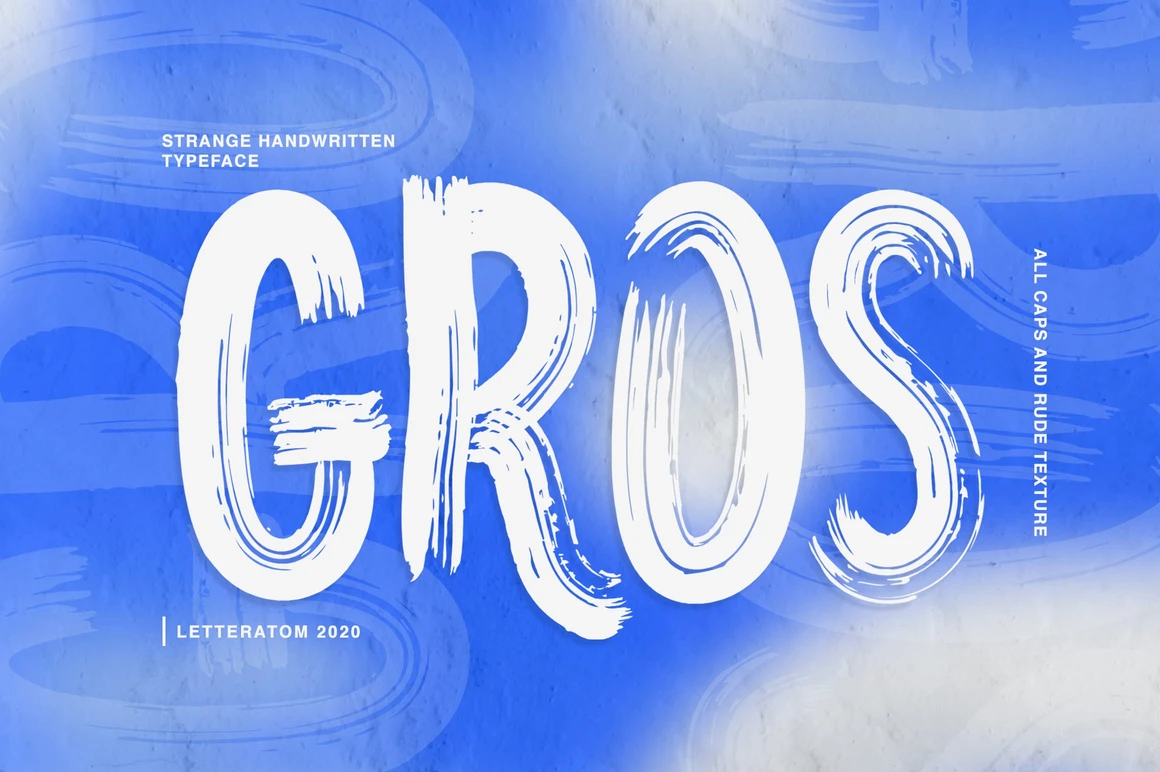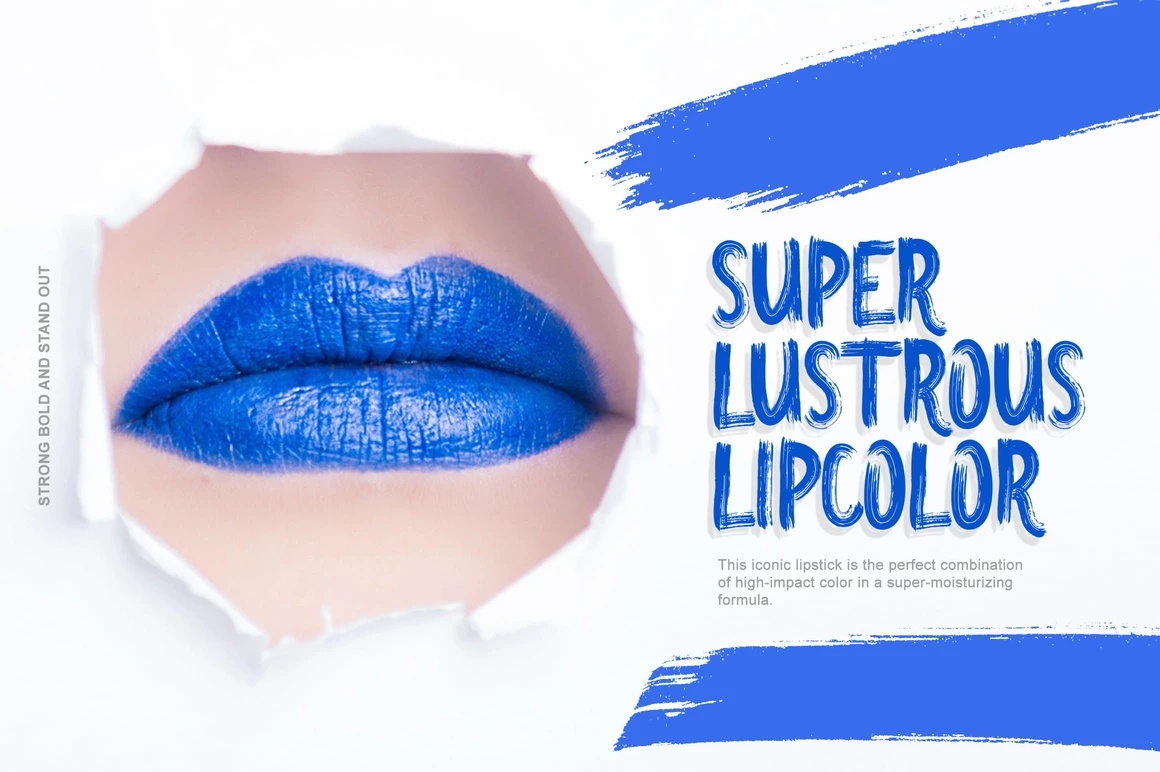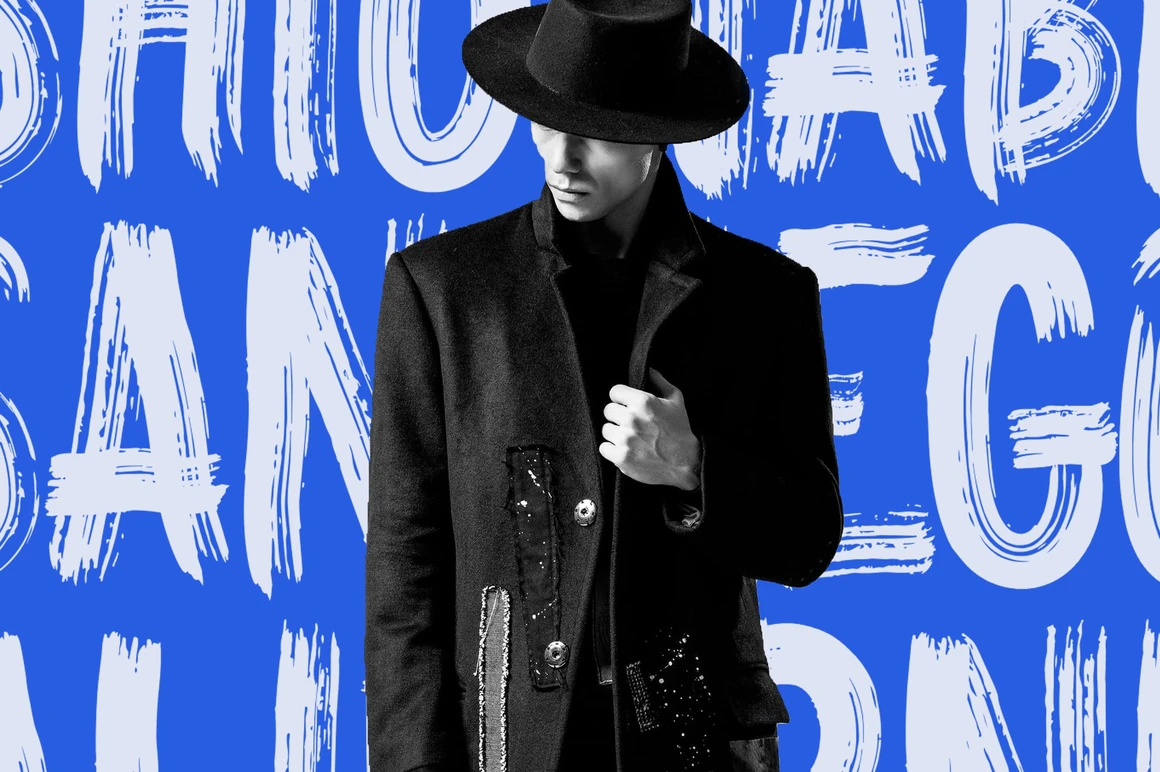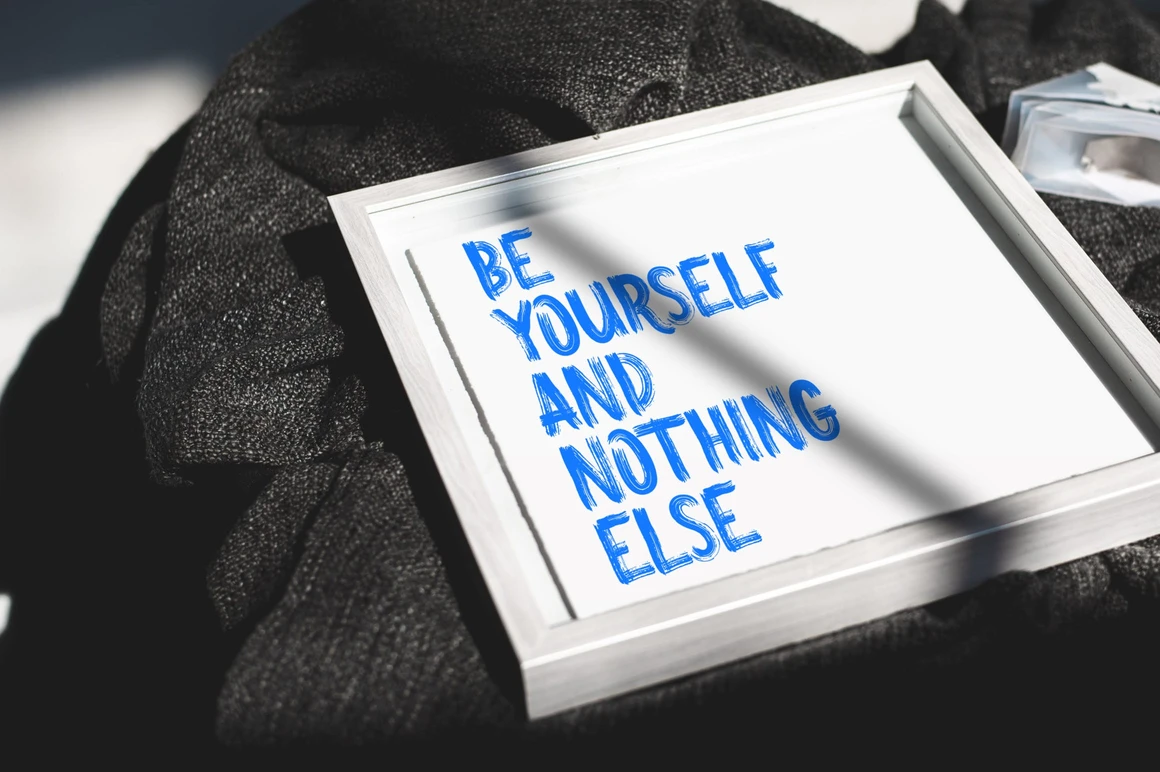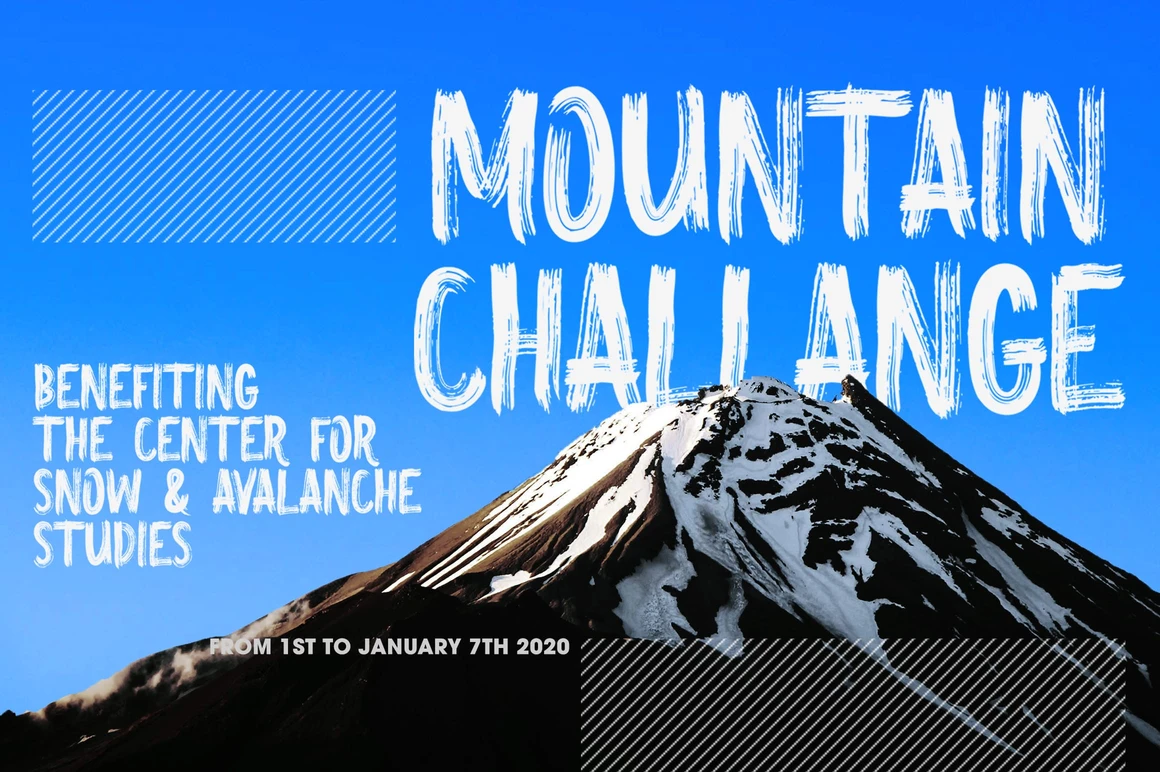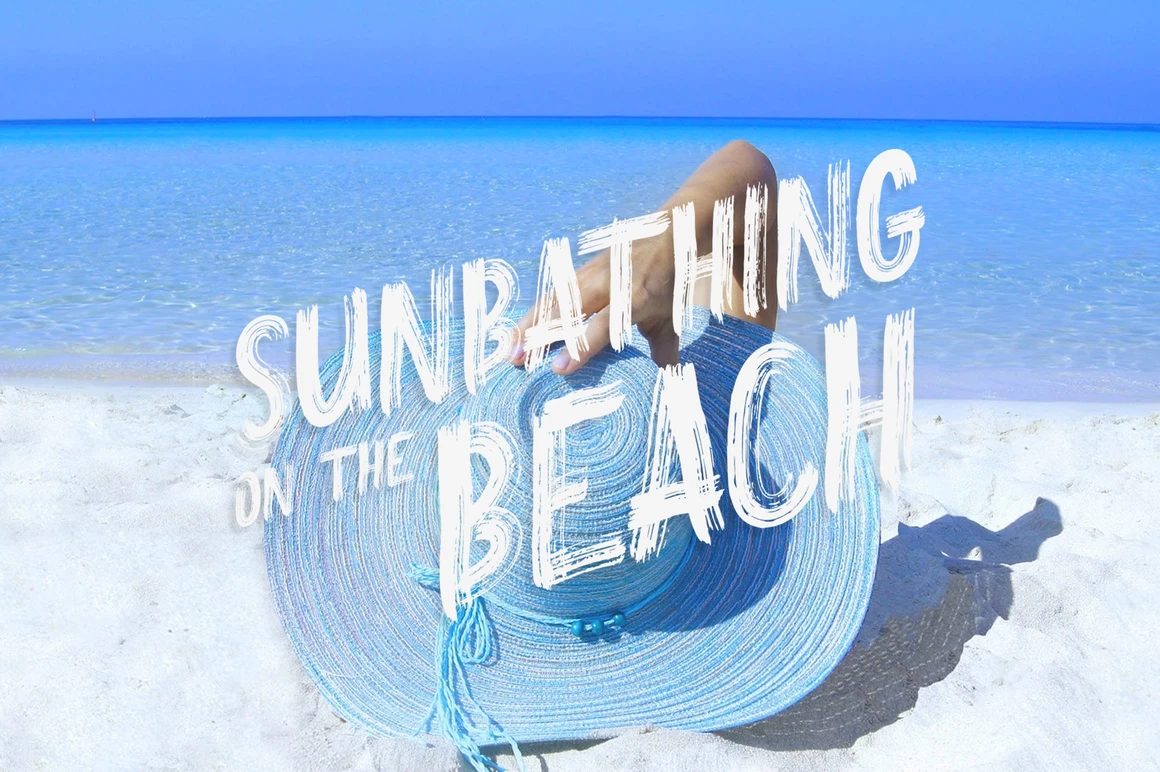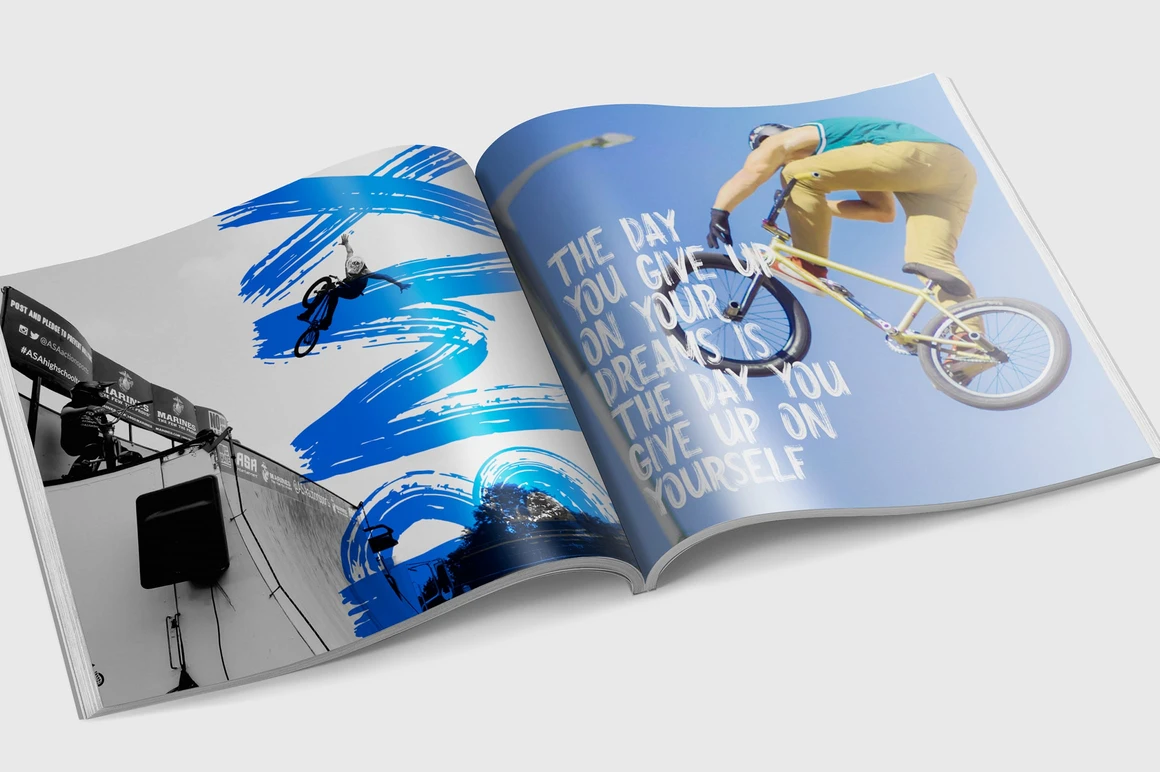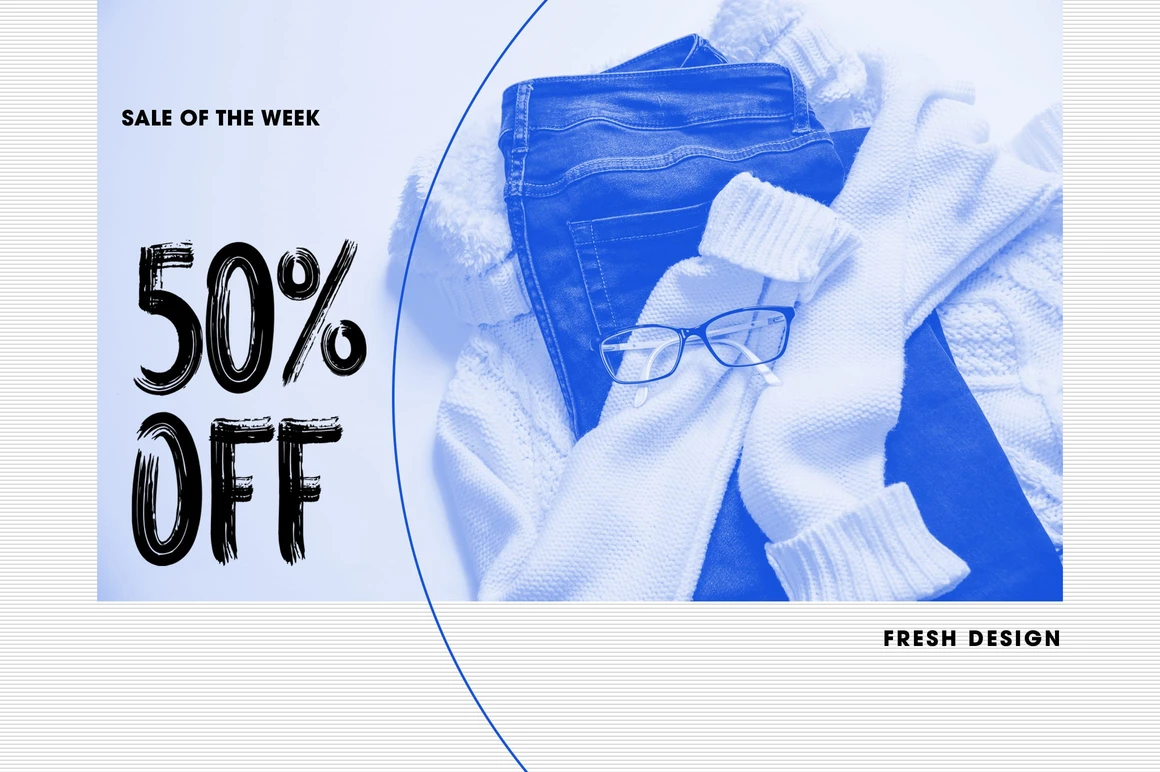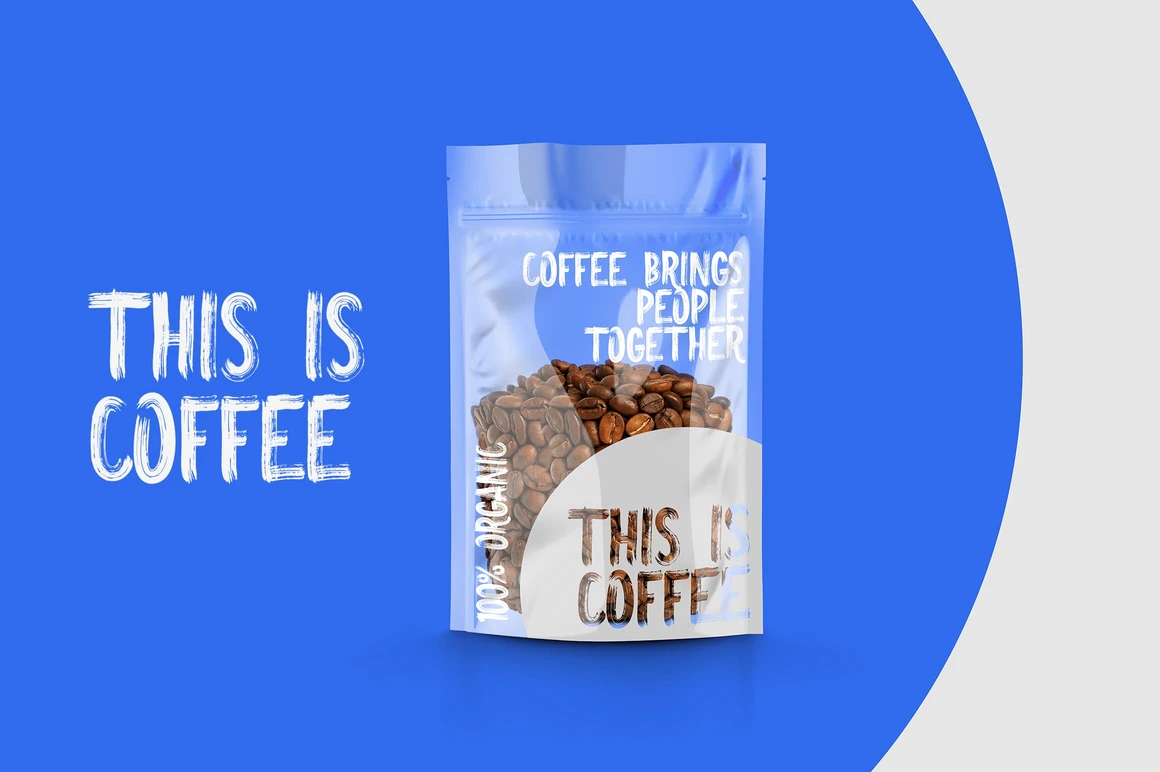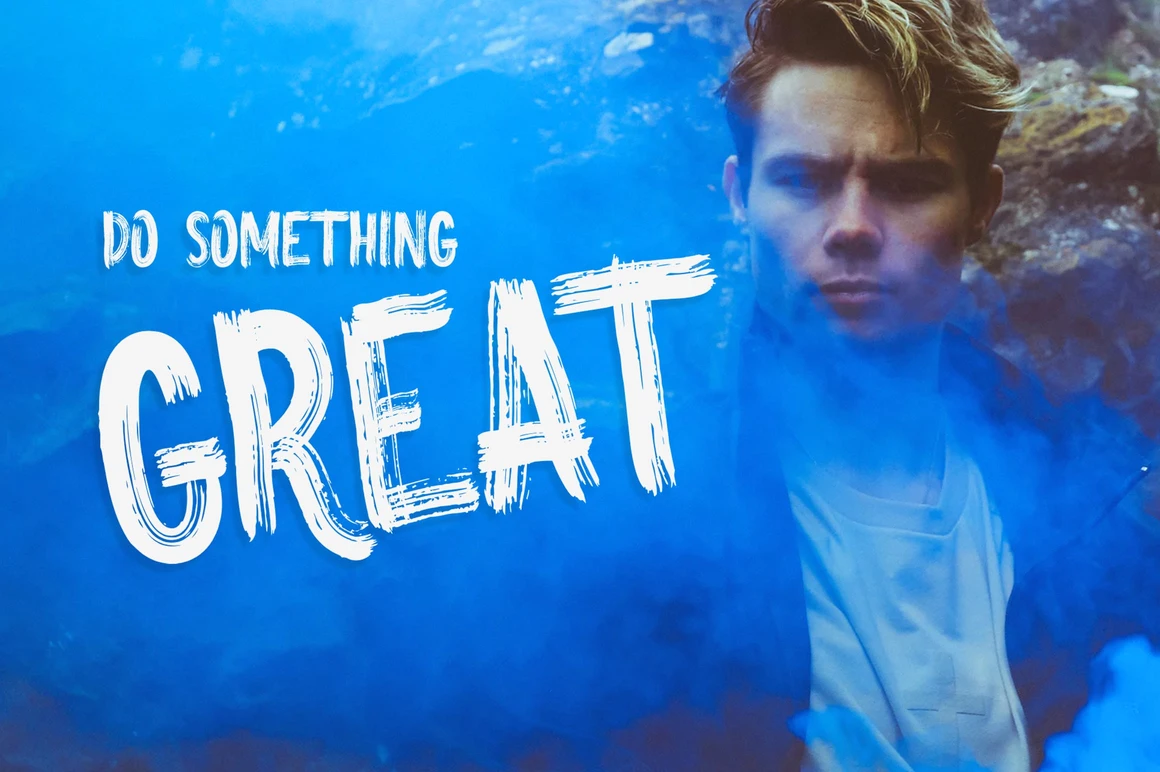
Gros is a handwritten font with a raw texture and consisting of all uppercase letters. If you want the writing to stand out, bold, very bold, giving your design a very strong impression and attract attention, Gros is perfect for your design needs. Highlight your designs with Gros!